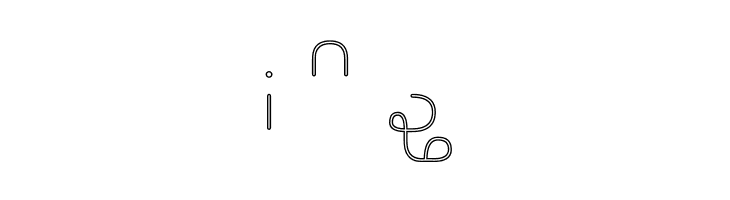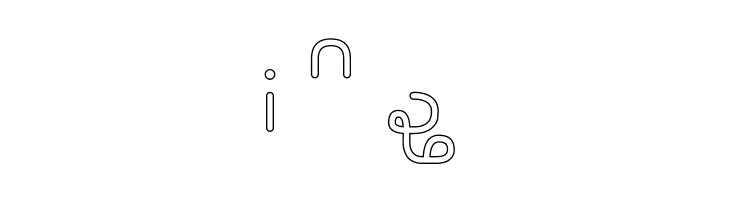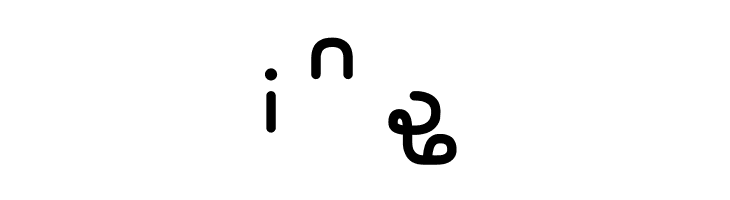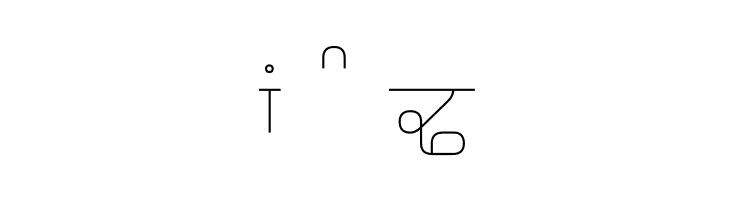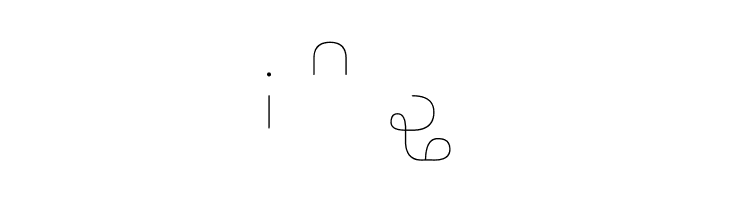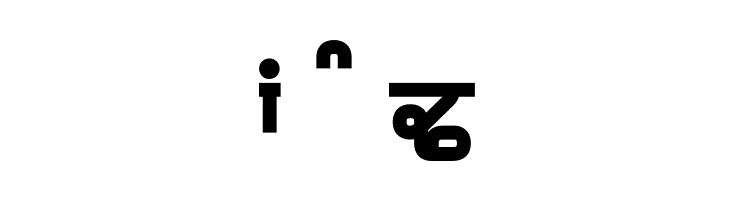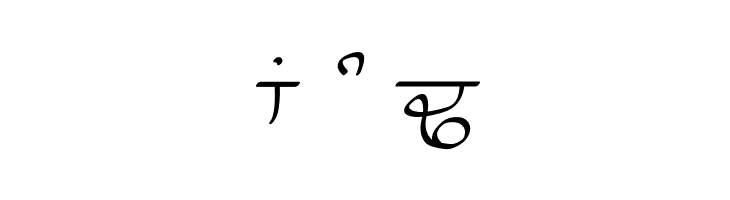
A decorative outline font with a modern, geometric style.
A modern, outline-style font with smooth, continuous lines and a geometric structure.
A bold, decorative font with a double-line effect and artistic curves.
A modern, geometric font with clean lines and an extra-light weight.
A modern, ultra-thin font with wide spacing and a sleek, minimalist design.
A bold, expressive font with a blend of traditional and modern elements.
A bold, handwritten-style font with expressive, dynamic curves.
A modern, abstract font with consistent line weight and artistic character design.
A heavy, geometric, and modern typeface with bold, uniform strokes.
An artistic and elegant font with flowing, interconnected strokes.
A bold, modern font with high contrast and decorative elements.
A modern, decorative font with rounded, flowing letterforms and consistent stroke width.
Modern, geometric Gurmukhi script with monolinear strokes.
A bold, outline font with rounded, flowing characters for modern, decorative use.
A bold, decorative font with abstract and flowing letterforms, ideal for artistic projects.
A clean, geometric font with medium weight and balanced proportions.
A modern, outline-style font with a light and airy appearance.
A bold, artistic font with a blend of geometric and organic shapes, perfect for creative projects.
A modern, thin, geometric font with rounded corners and a minimalistic style.
A modern outline font with thin borders and geometric precision.
A bold, decorative font with a double-line border effect.
A modern, geometric font with uniform stroke width and rounded edges.
A modern, thin-lined font with a minimalist and elegant design.
An ultra-thin, modern font with abstract and artistic character designs.
A bold, outline-heavy font with a modern, futuristic aesthetic.
A bold, modern font with clean lines and balanced proportions.
A modern, geometric font with a futuristic and tech-inspired design.
A decorative font with thin borders and geometric structure, offering a modern yet classic style.
A thin, abstract font with futuristic and artistic design elements.
A modern, hollow, decorative font with outlined characters.
Bold, geometric Gurmukhi sans-serif with clean, modern lines.
A graceful and flowing script font with elegant curves and consistent stroke width.